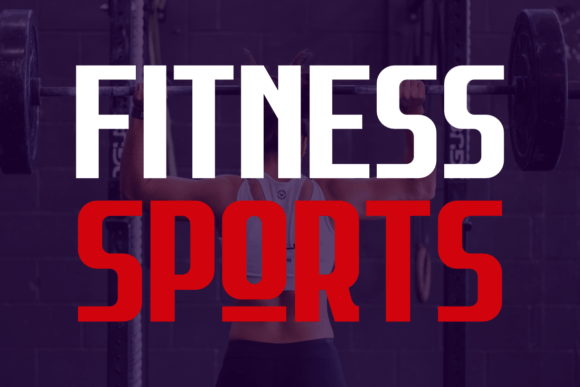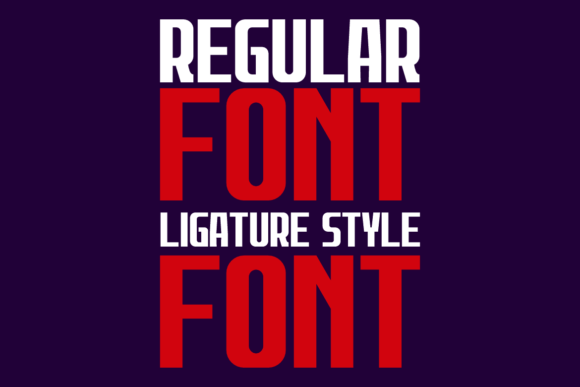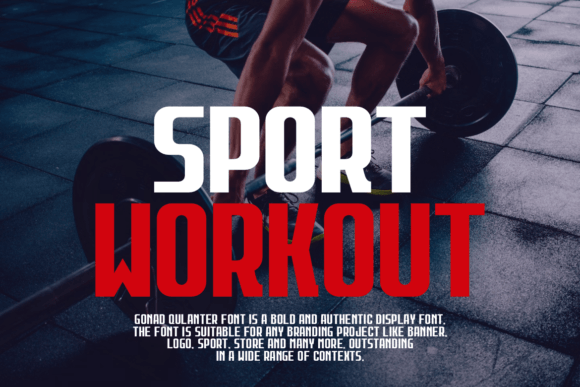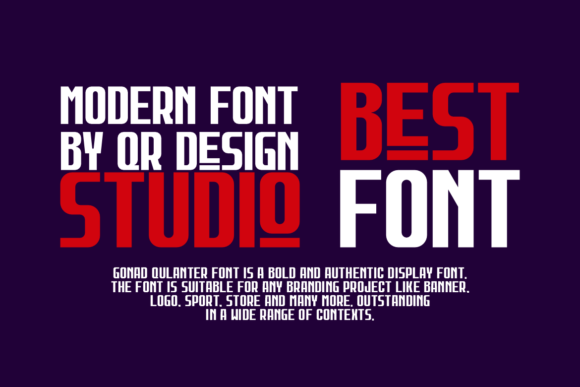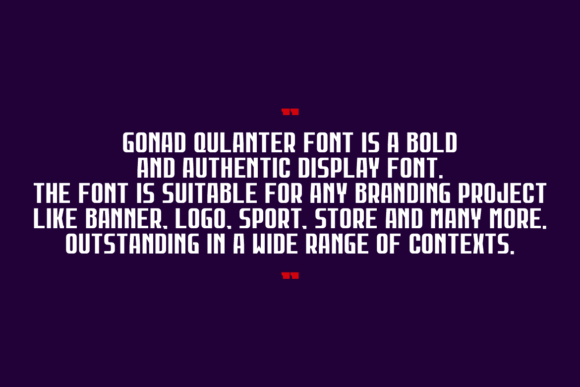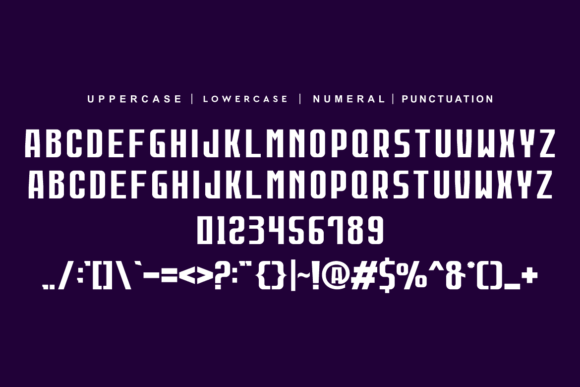
Gonad Qulanter Font: Elevate Your Designs with a Bold and Assertive Sans Serif
In the world of typography, a font can make or break a design. It’s the foundation upon which the entire visual identity is built. For designers and crafters, having the right font in their arsenal can be a game-changer. This is where Gonad Qulanter comes in – a bold and assertive sans serif font that’s poised to revolutionize your font library.
The Power of Sans Serif Fonts
Sans serif fonts have long been a staple in the design world. Their clean lines, simplicity, and versatility make them a popular choice for a wide range of applications. From digital interfaces to print materials, sans serif fonts have a way of conveying a sense of modernity and sophistication. Gonad Qulanter takes this classic style to the next level with its bold and assertive personality.
What Makes Gonad Qulanter Special?
So, what sets Gonad Qulanter apart from other sans serif fonts? For starters, its bold and assertive nature makes it perfect for headlines, titles, and any other application where you want to grab attention. But it’s not just about being loud – Gonad Qulanter also has a level of sophistication and elegance that makes it suitable for more refined designs.
Whether you’re working on a branding project, a website, or a marketing campaign, Gonad Qulanter has the potential to elevate your creation. Its versatility is unmatched, allowing you to use it in a wide range of contexts without worrying about it looking out of place.
Key Features of Gonad Qulanter
So, what can you expect from Gonad Qulanter? Here are some of its key features:
- Bold and Assertive: Gonad Qulanter is a font that demands attention. Its bold and assertive nature makes it perfect for headlines, titles, and any other application where you want to make a statement.
- Clean Lines: Like all great sans serif fonts, Gonad Qulanter has clean lines that give it a sense of simplicity and elegance.
- Versatile: Whether you’re working on a digital project or a print material, Gonad Qulanter is versatile enough to adapt to any context.
- Sophisticated: Despite its bold nature, Gonad Qulanter has a level of sophistication that makes it suitable for refined designs.
How to Use Gonad Qulanter in Your Designs
So, how can you use Gonad Qulanter in your designs? The possibilities are endless, but here are a few ideas to get you started:
- Headlines and Titles: Use Gonad Qulanter to create bold and attention-grabbing headlines and titles.
- Branding: Gonad Qulanter is perfect for branding projects where you want to create a bold and assertive visual identity.
- Web Design: Use Gonad Qulanter to create stunning website headers, titles, and other typographic elements.
- Marketing Materials: Gonad Qulanter is perfect for marketing materials like brochures, flyers, and posters where you want to grab attention.
In conclusion, Gonad Qulanter is a bold and assertive sans serif font that’s poised to revolutionize your font library. Its versatility, sophistication, and elegance make it a valuable asset for any designer or crafter. Whether you’re working on a branding project, a website, or a marketing campaign, Gonad Qulanter has the potential to elevate your creation. So why wait? Add Gonad Qulanter to your font library today and experience the power of bold and assertive typography.